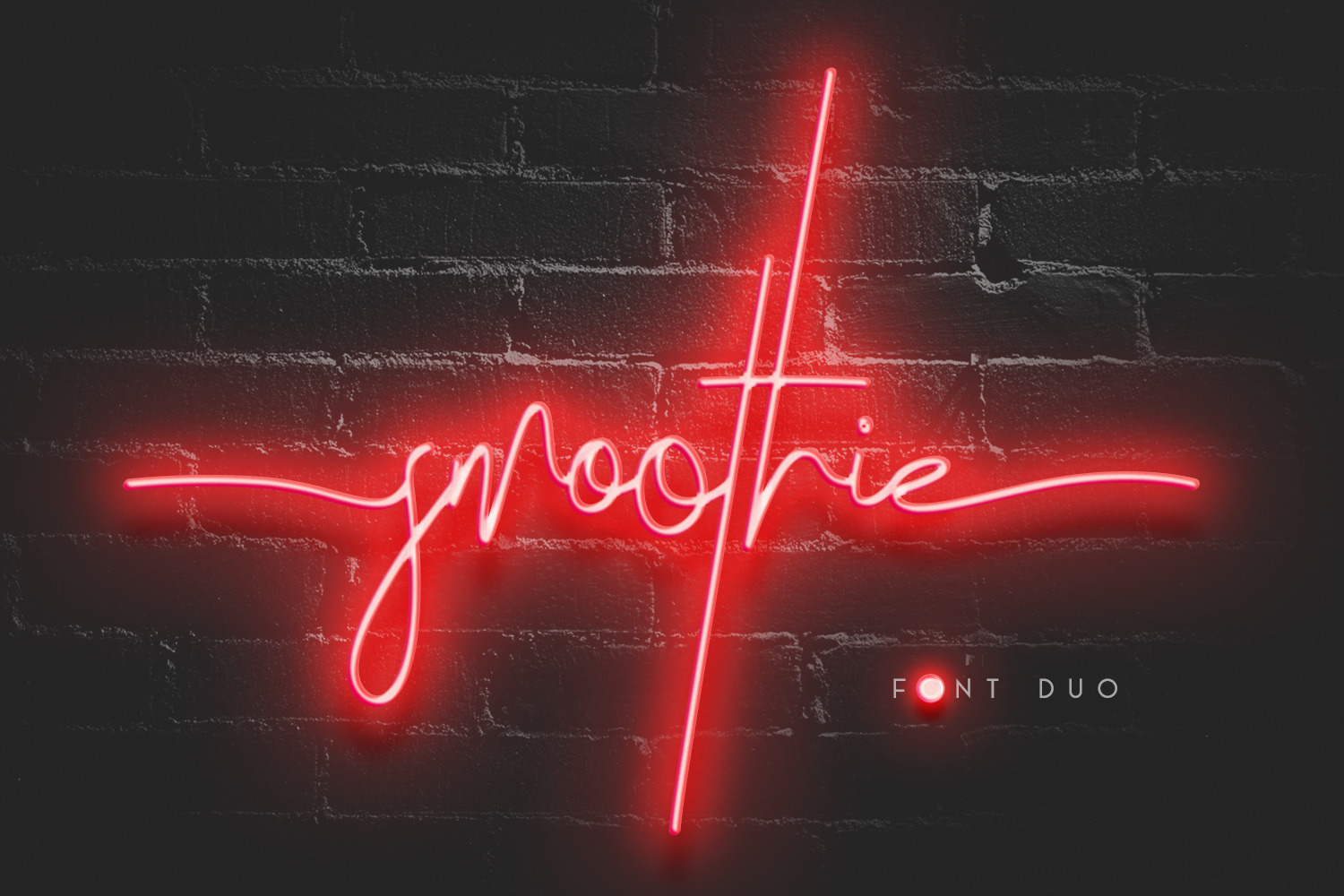
Smoothie Font Duo
Smoothie Font Duo is a classy, contemporary pair of script and sans-serif fonts. Its offers beautiful typographic harmony for a diversity of design projects, headlines, branding visual identity, poster, logo, magazines and etc.
- Upper and lowercase characters, numerals, punctuation